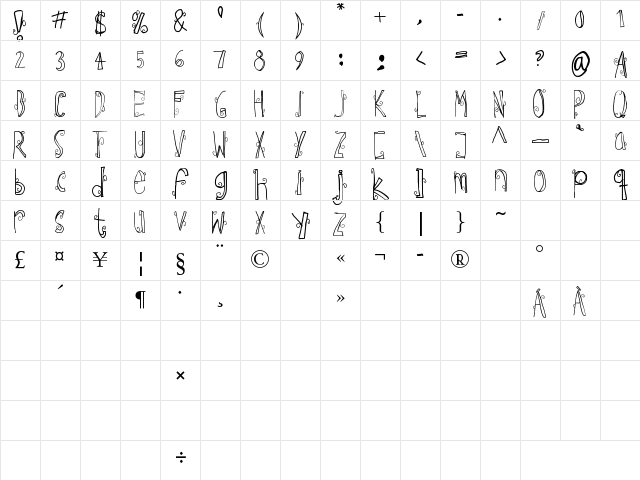
Ebba Font Regular
Design Context for Ebba Font
Ebba Font is a composed and adaptable typeface that performs quietly and consistently across a wide range of design contexts.